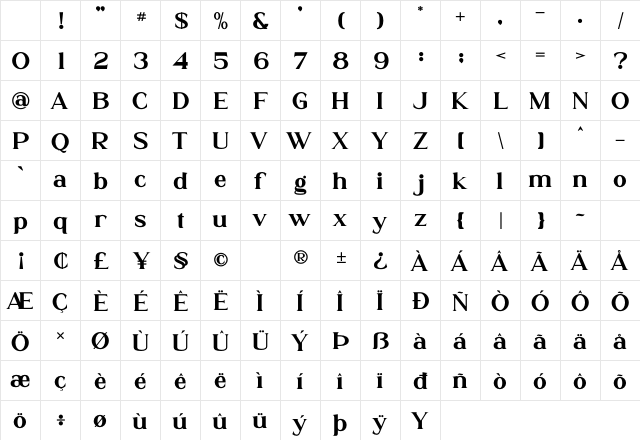
Balboa Magic is a composed and adaptable typeface that performs quietly and consistently across a wide range of design contexts.
Pro Tip: Use Balboa Magic in both headline and body roles to test its range before committing to a single application.